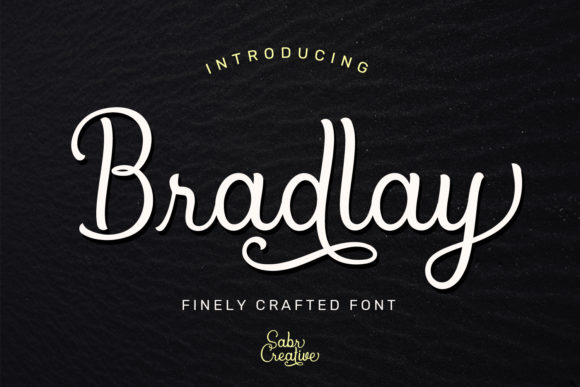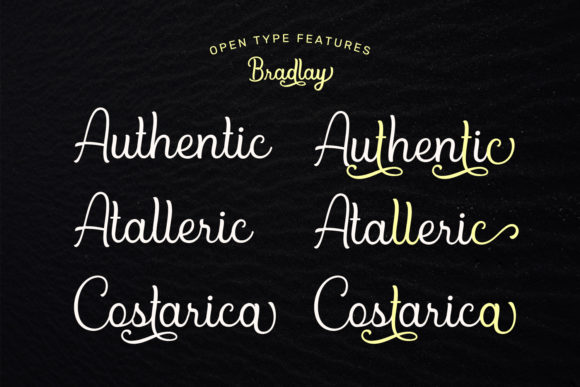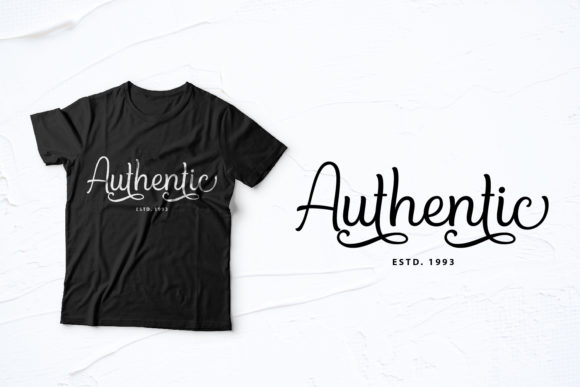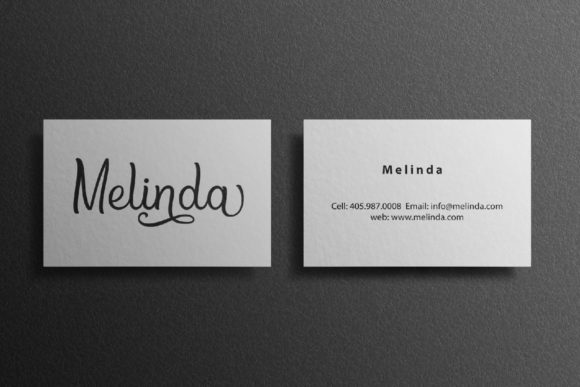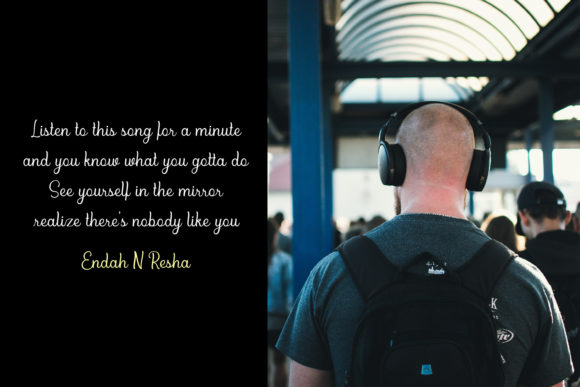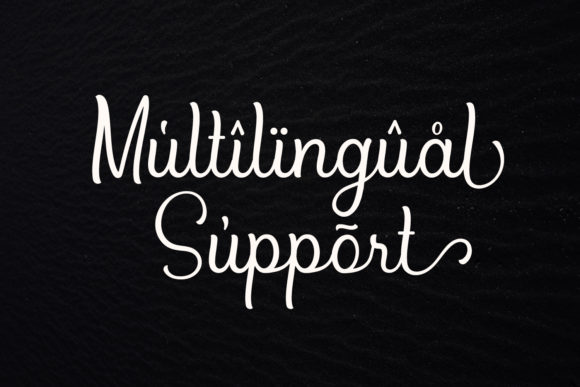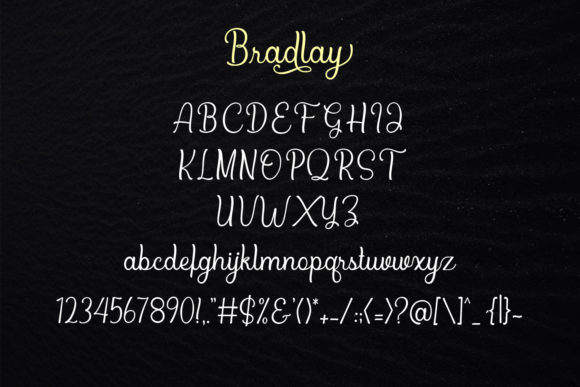
Bradlay Font
About Bradlay Font
Bradlay is a fun, elegant and timeless handwritten font with a unique and bold feel. Get inspired by its authentic charm!